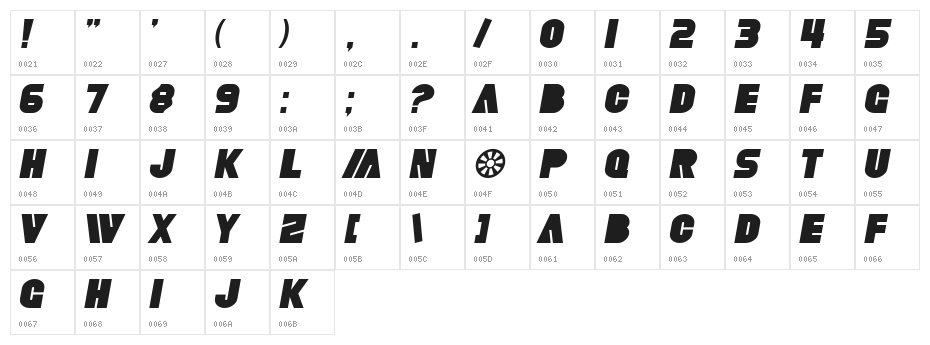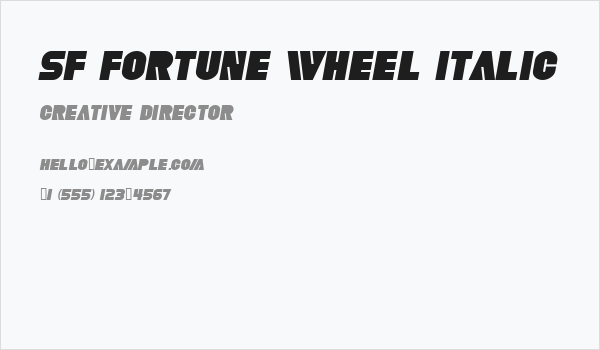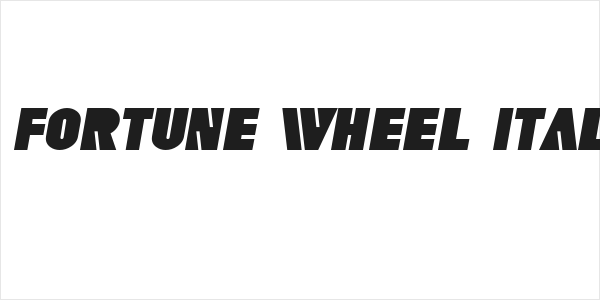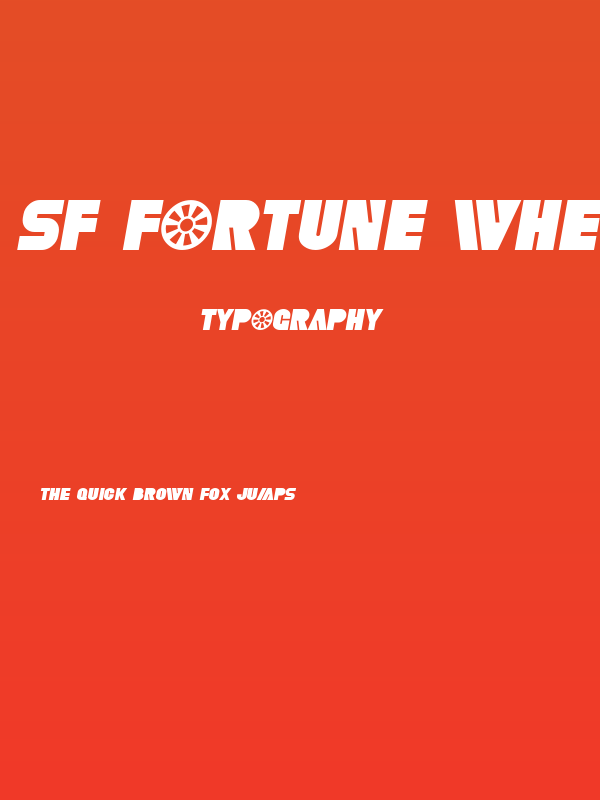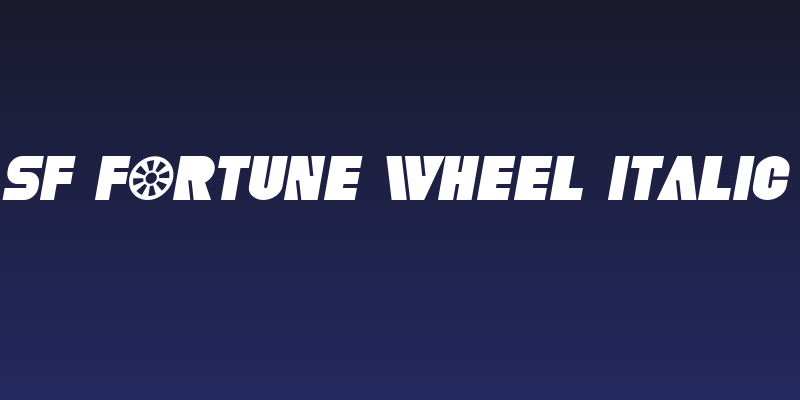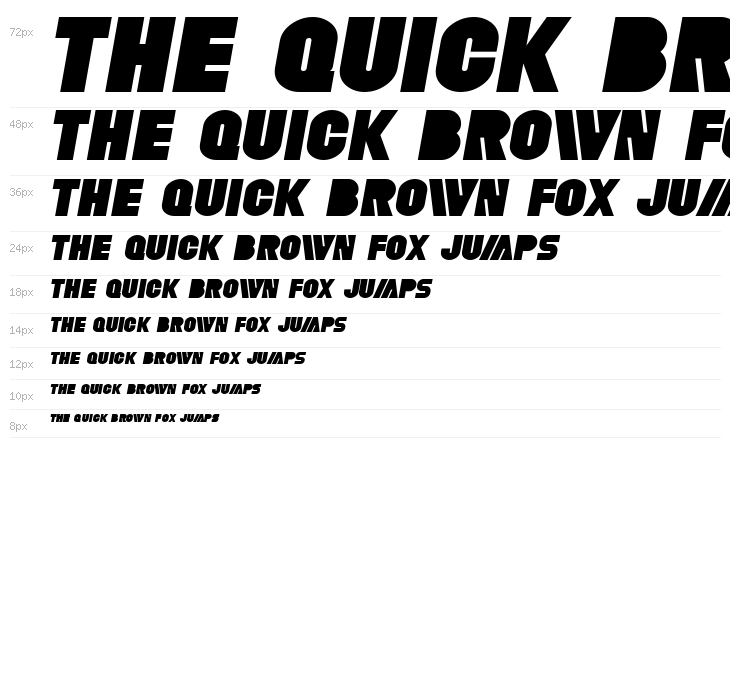
SF Fortune Wheel Italic Font
SF Fortune Wheel Italic Description
This font features a bold and dynamic style with a distinctly italic slant, giving it a sense of motion and energy. The characters are wide and heavily weighted, with sharp angles and clean lines that create a strong visual impact. The uppercase letters are particularly striking, with a unique design that incorporates geometric elements, such as the wheel-like 'O'. The numerals and special characters maintain the same boldness and angularity, ensuring consistency across all glyphs. This font is ideal for projects that require a modern and eye-catching typeface.